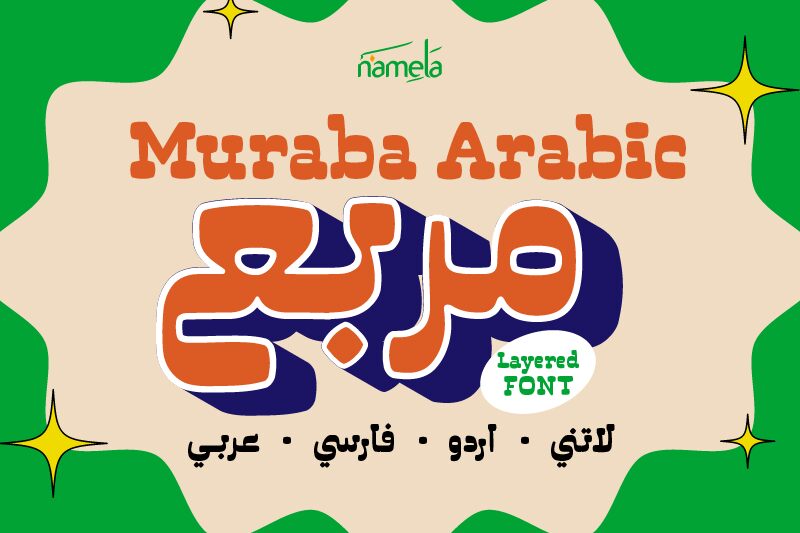
Muraba font family by Namela Type combines retro, rounded, geometric shapes to create a unique free font with a modern style twist. Consisting of 3 styles, this awesome typeface set makes a great choice for classic projects in which you want to offer a nostalgic feel. Being a structured, cohesive font, it makes an excellent choice for projects in which you want to communicate friendliness with a hint of impact.
The versatile font aspires to meet all your corporate and personal design needs with a wide variety of uses. Muraba can be used in the design of album covers, magazines, books, and websites. Posters, flyers, packaging boxes, branding identity, stationery designs, and advertisement designs can also be designed by Muraba.